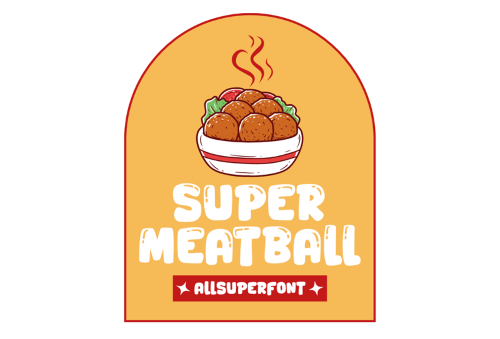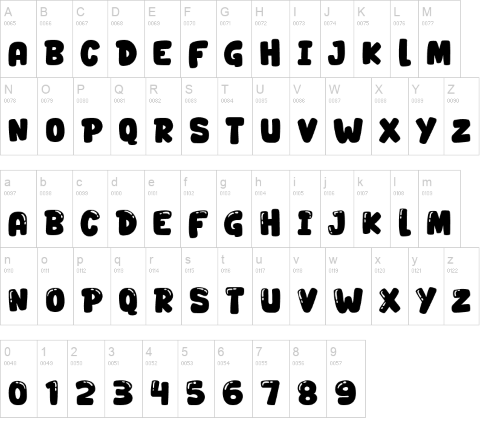
Super Meatball Font
Super Meatball Font is a chunky, playful display typeface packed with energy and fun. Its thick, rounded letterforms give it a bold cartoon-like personality, making it perfect for game titles, food branding, posters, kids’ designs, and eye-catching logos. Super Meatball delivers a tasty mix of humor, impact, and visual excitement.
➤ Font Name: Super Meatball
➤ Style: Cartoon